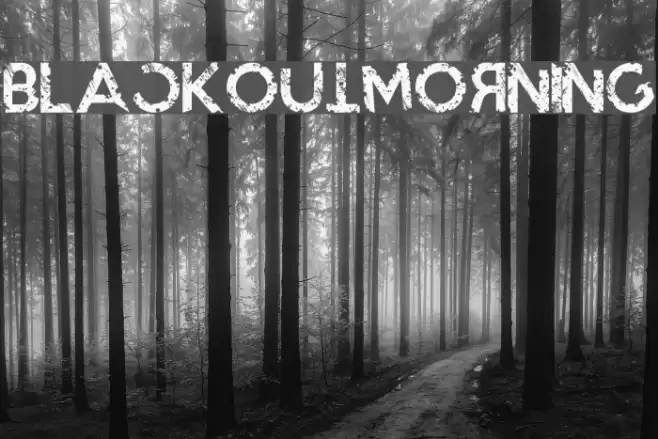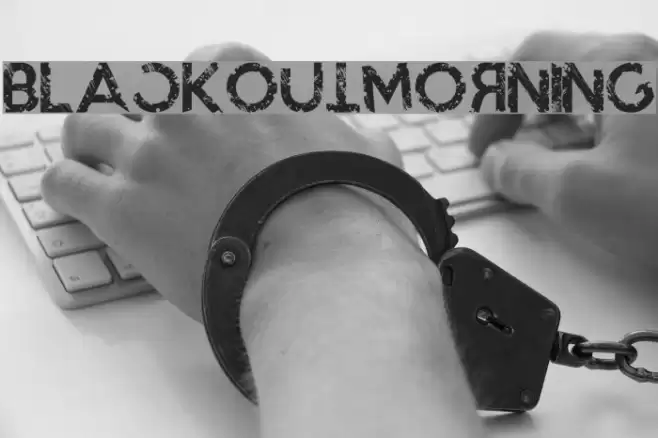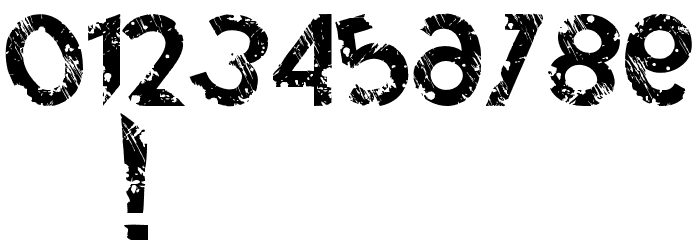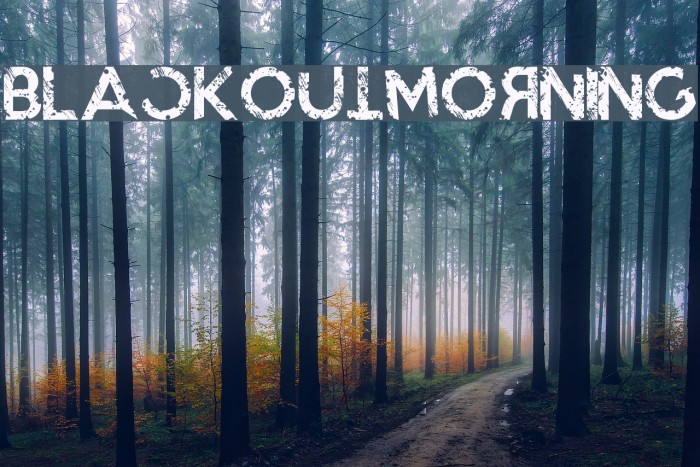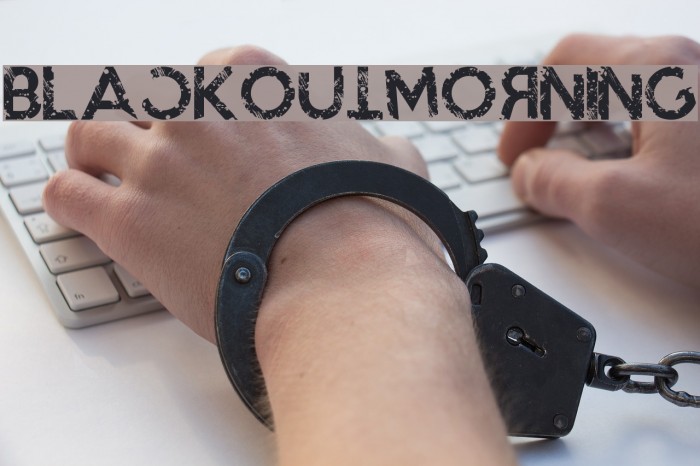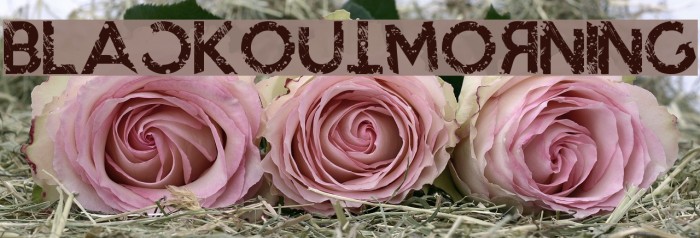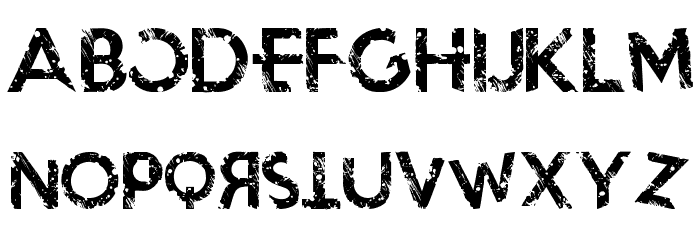
BlackoutMorning Font
BlackoutMorning Description
This font features a bold, distressed style with a textured appearance that gives it a rugged, grunge-like feel. The characters are uppercase and numerals, with a consistent rough pattern that adds a sense of edginess and dynamism. The design is highly decorative, making it suitable for eye-catching headlines or artistic projects. The bold strokes and irregular edges create a strong visual impact, while the overall style maintains a modern yet rebellious aesthetic. This font is ideal for projects that require a bold statement or a unique, unconventional look.
A bold, distressed font with a rugged, grunge-like texture from Fancy fonts.
- Proposed Projects: Ideal for album covers, posters, urban-themed designs, and branding that requires a bold statement.
- Overall Style: Modern, Grunge